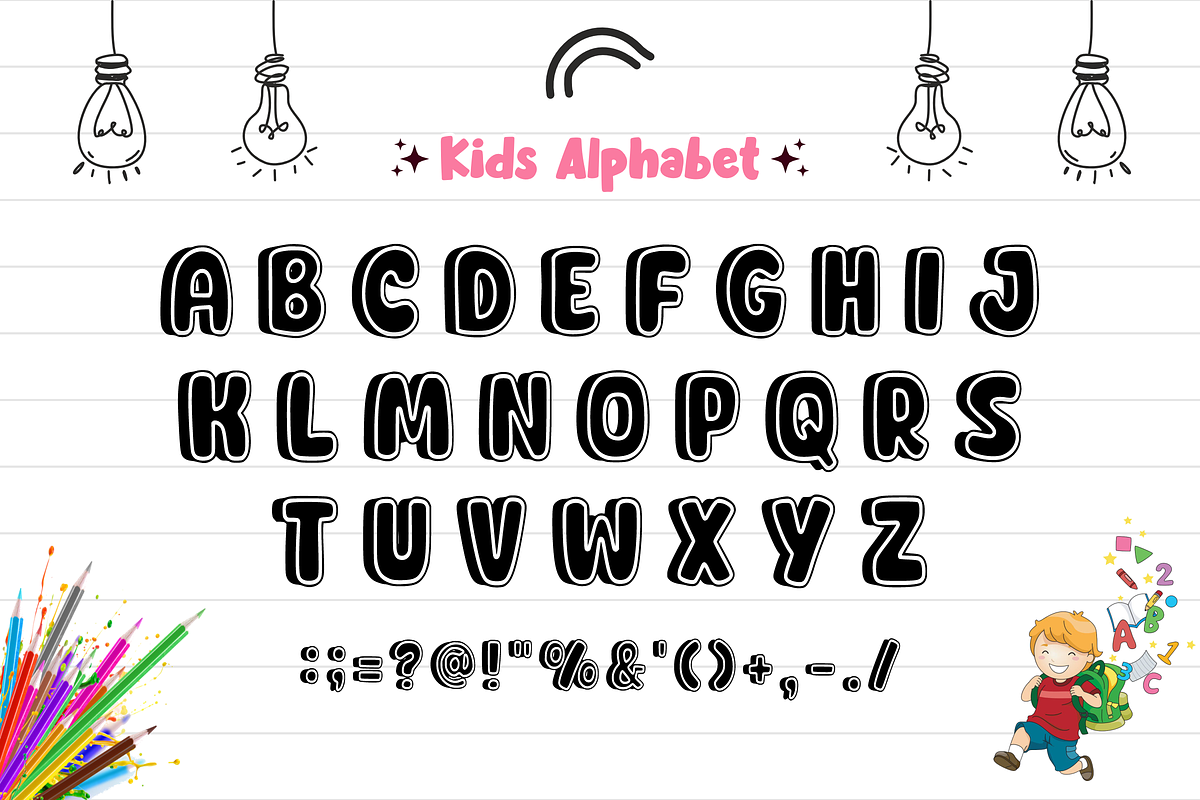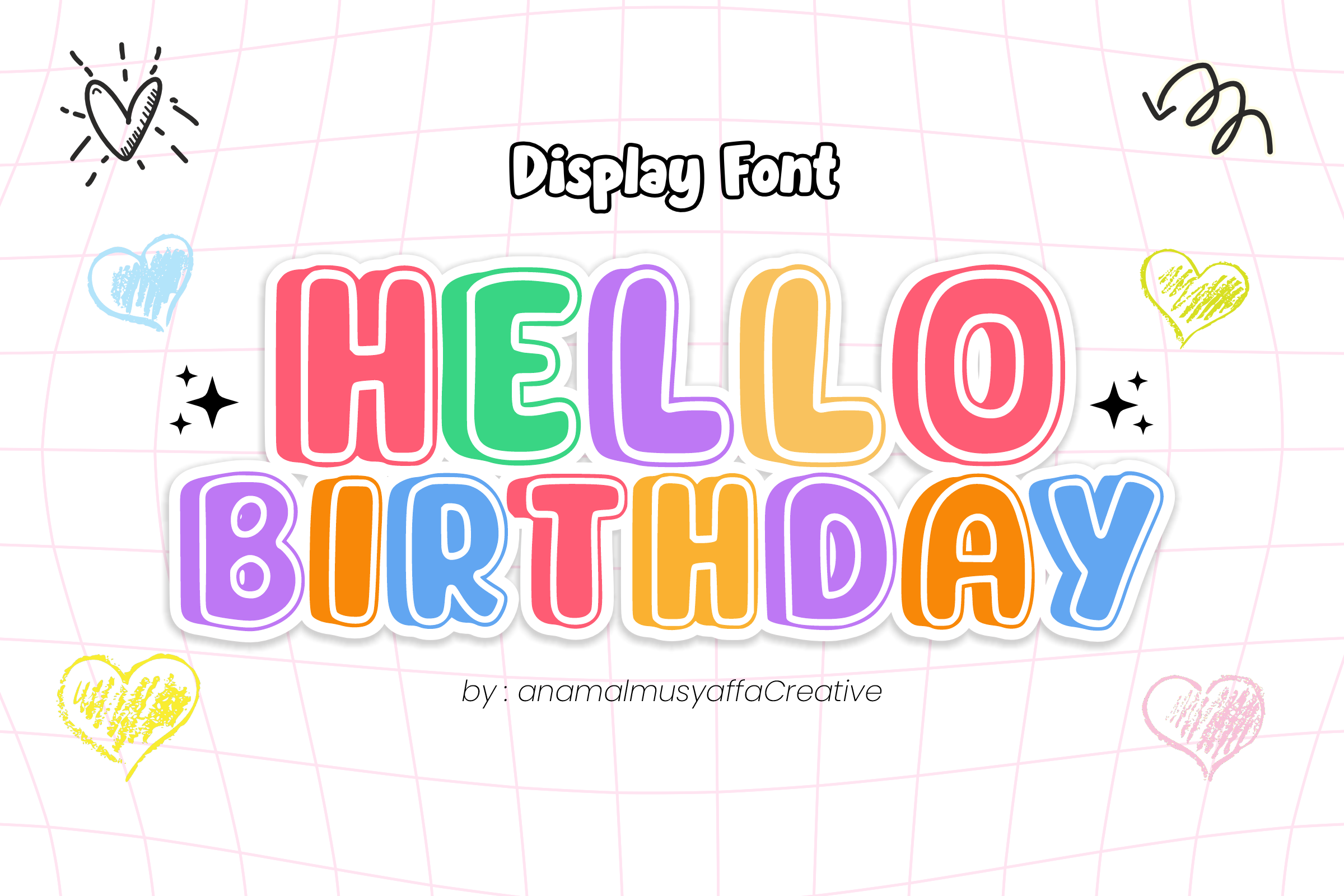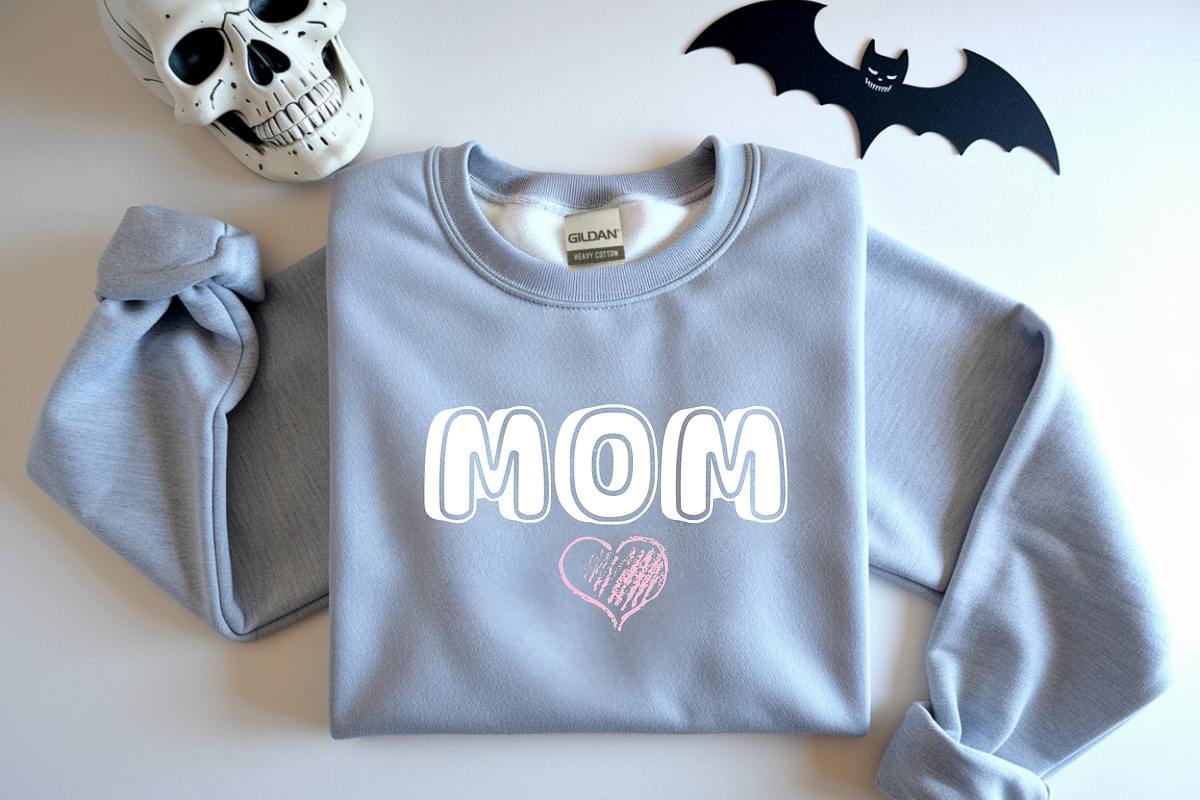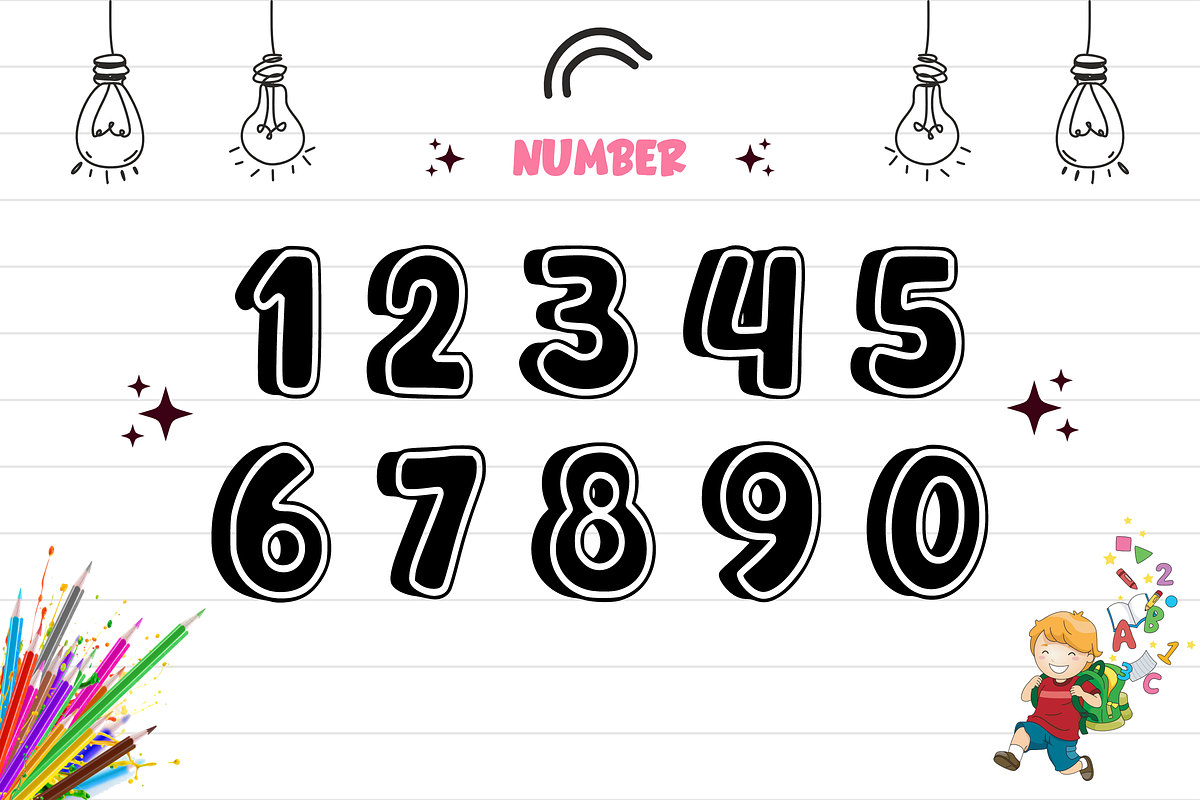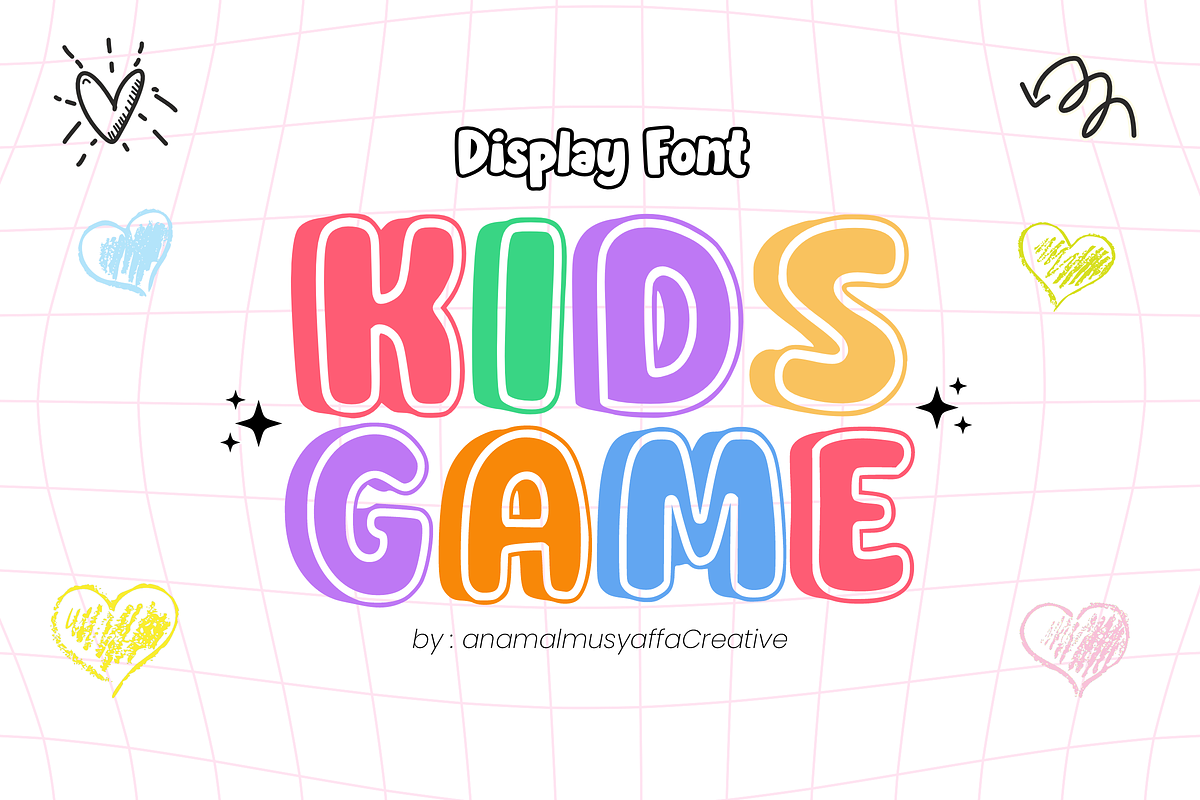
Hello Birthday - Display Font
๐ Hello Birthday: The Ultimate Party & Celebration Font ๐ Make every design a celebration with Hello Birthday! This cheerful display font features chunky, rounded letterforms with a playful white inline detail that creates a vibrant 3D "sticker" effect. It is perfectly crafted to bring a joyful, high-energy, and festive vibe to any creative project.
With its bold silhouette and bouncy personality, Hello Birthday ensures your headlines are the life of the party!
๐ Uppercase Alphabet โ Bold, bubbly, and incredibly fun.
๐ข Numeric Set โ Perfect for ages, dates, and countdowns.
โจ Essential Symbols โ Simple punctuation for all your party needs.
๐ Birthday Invitations & Greeting Cards
๐ง Cake Toppers & Party Signage
๐ Childrenโs Celebration Apparel & Gifts
๐ School Posters & Classroom Decor
๐ฑ Colorful Social Media Graphics & YouTube Thumbnails